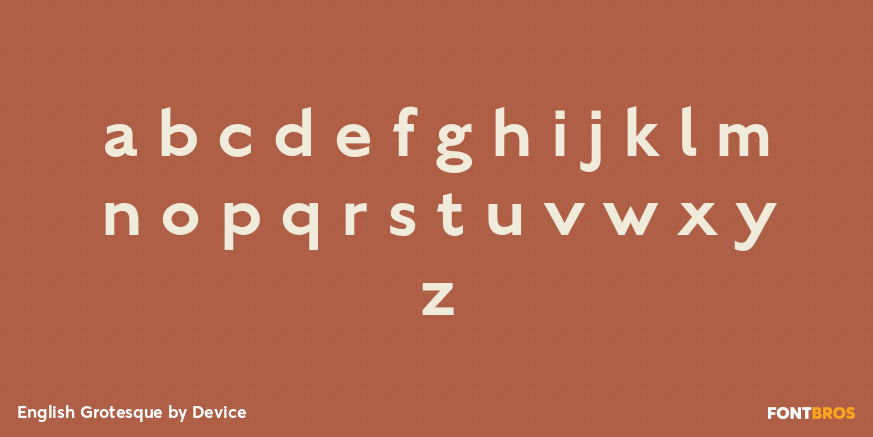
English Grotesque
Font Family by Device
This family from Device includes 6 styles: Thin, Light, Medium, Bold, Extra Bold, and Black. That spread makes it easy to move from elegant, airy headlines to dense, high-impact display typography while keeping a consistent look across a project.
Use it for posters, branding, packaging, signage, and other display applications where period style matters. If you want a sans serif that feels architectural, decorative, and confidently retro, this family offers plenty of room to shape the tone from subtle to bold.